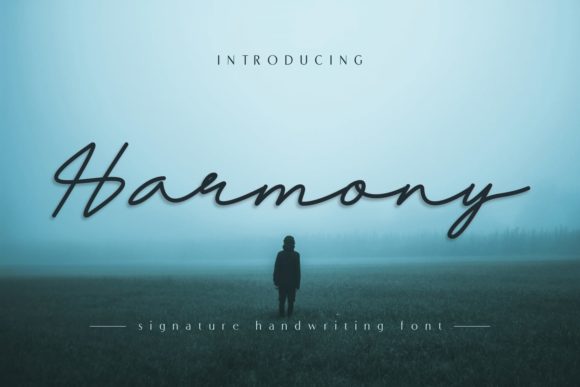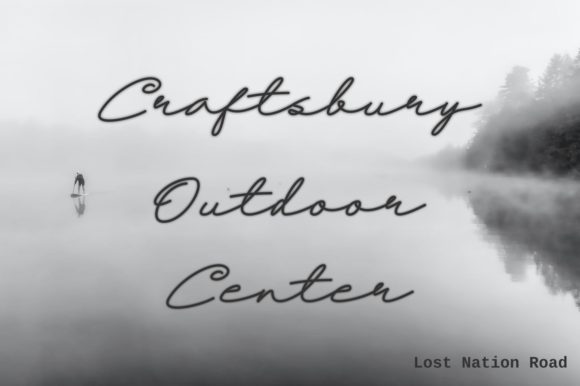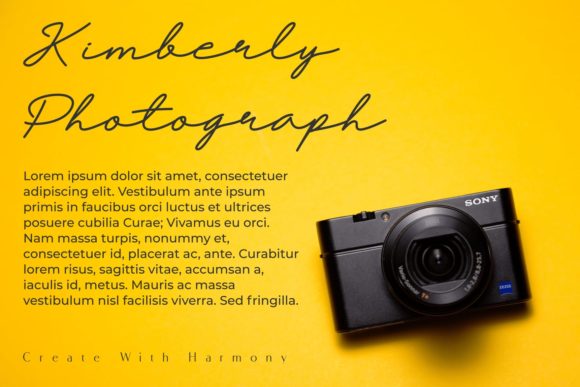
About Harmony Font
Harmony is a well balanced and beautiful signature script font. It has a classy, elegant and modern look that can be used for logos, branding, invitations, stationery, wedding designs, social media posts, website, title and much more.